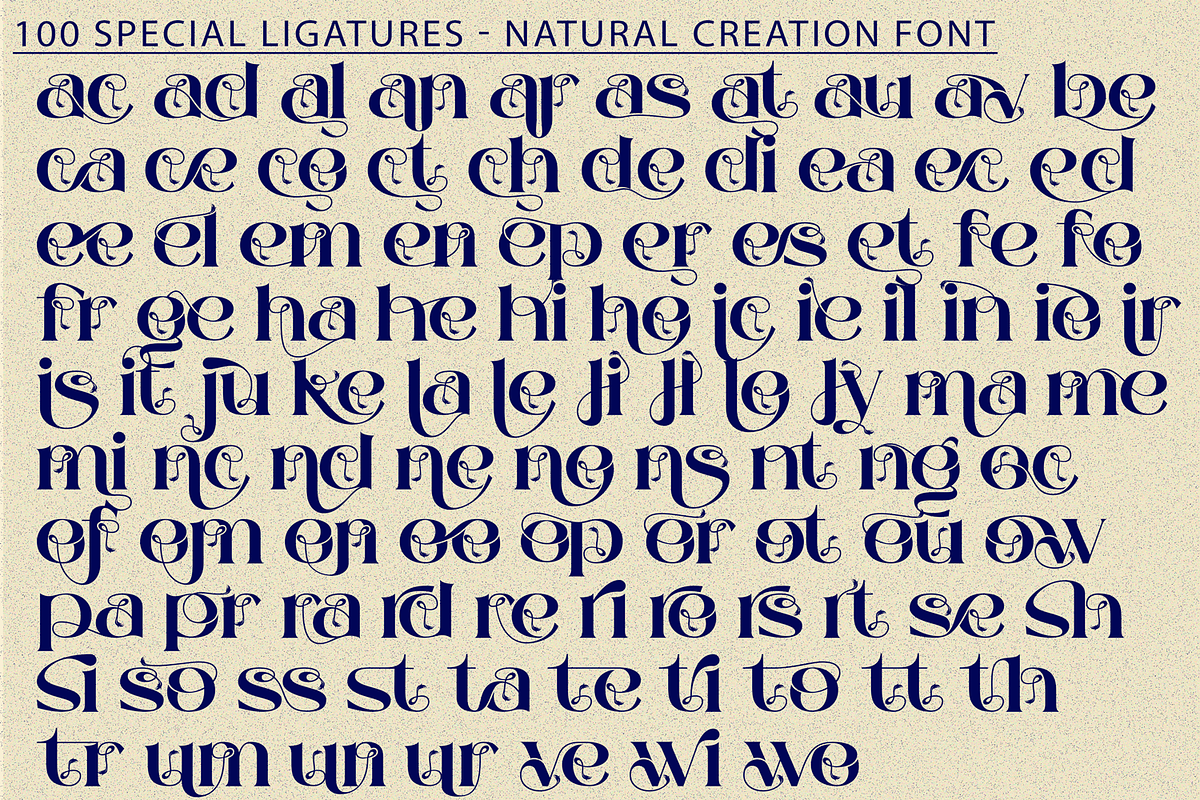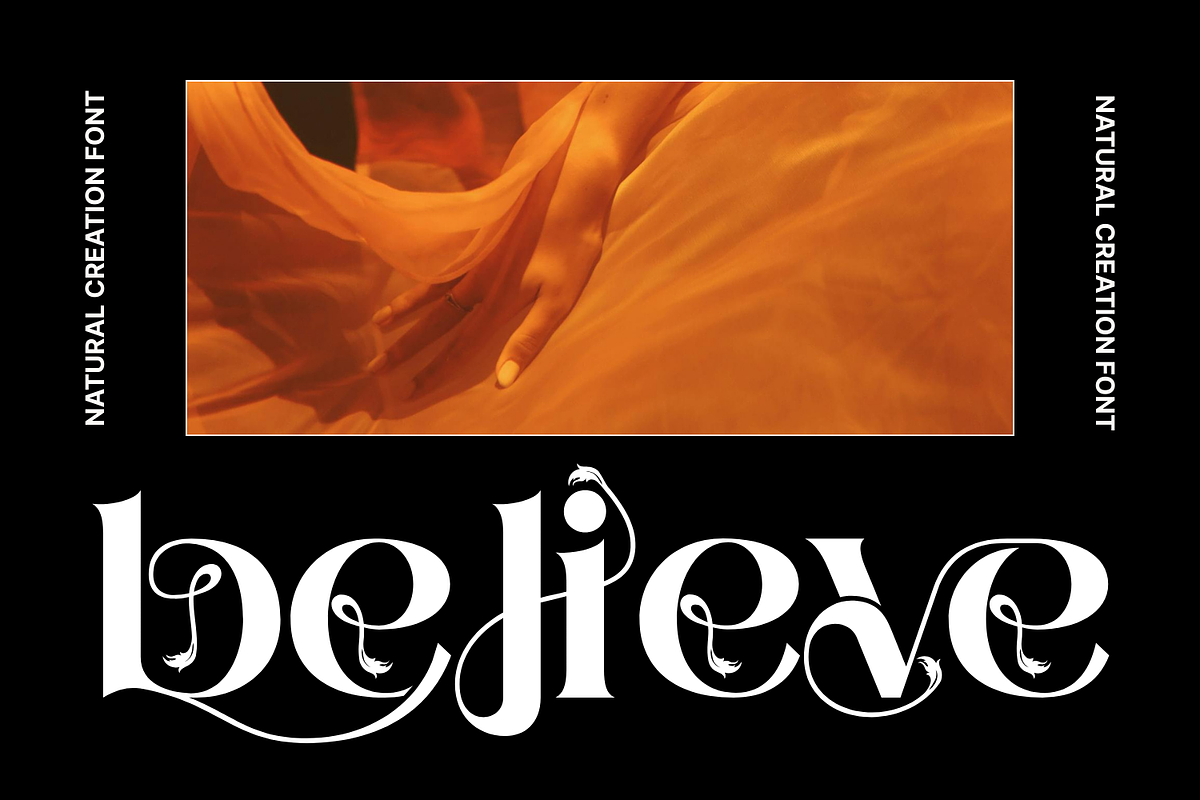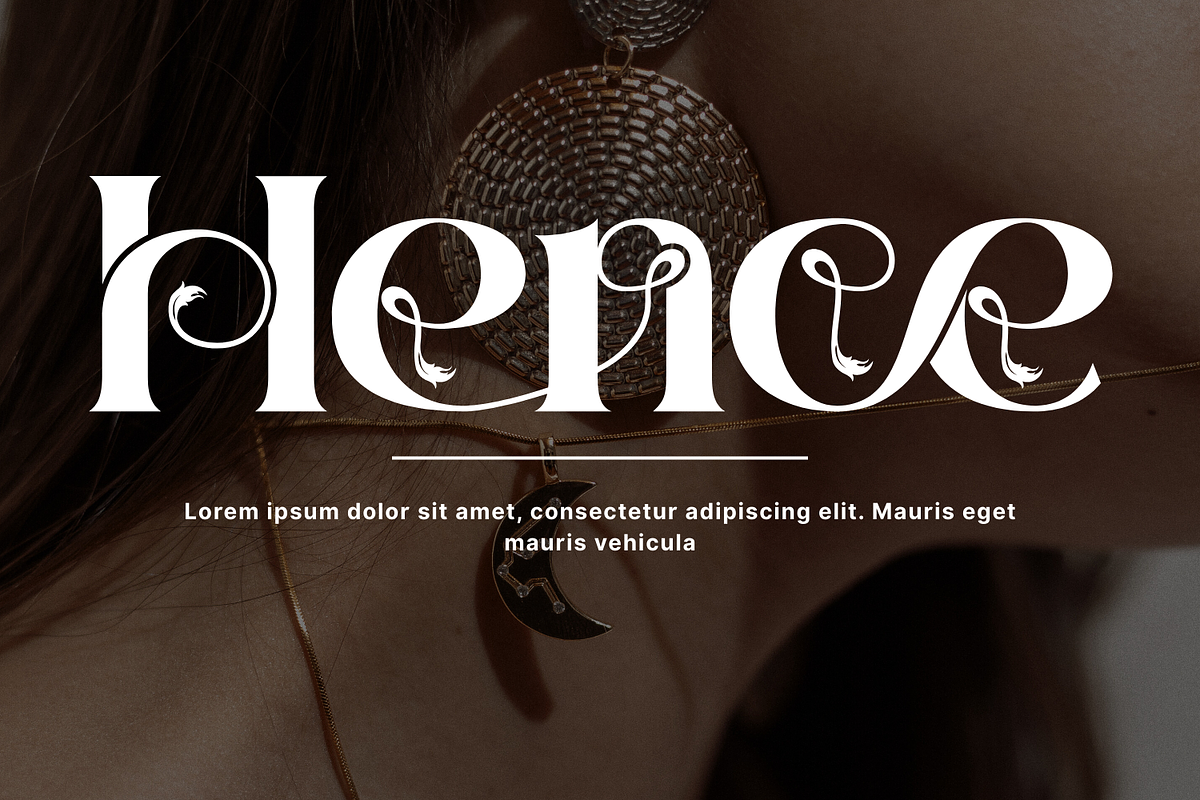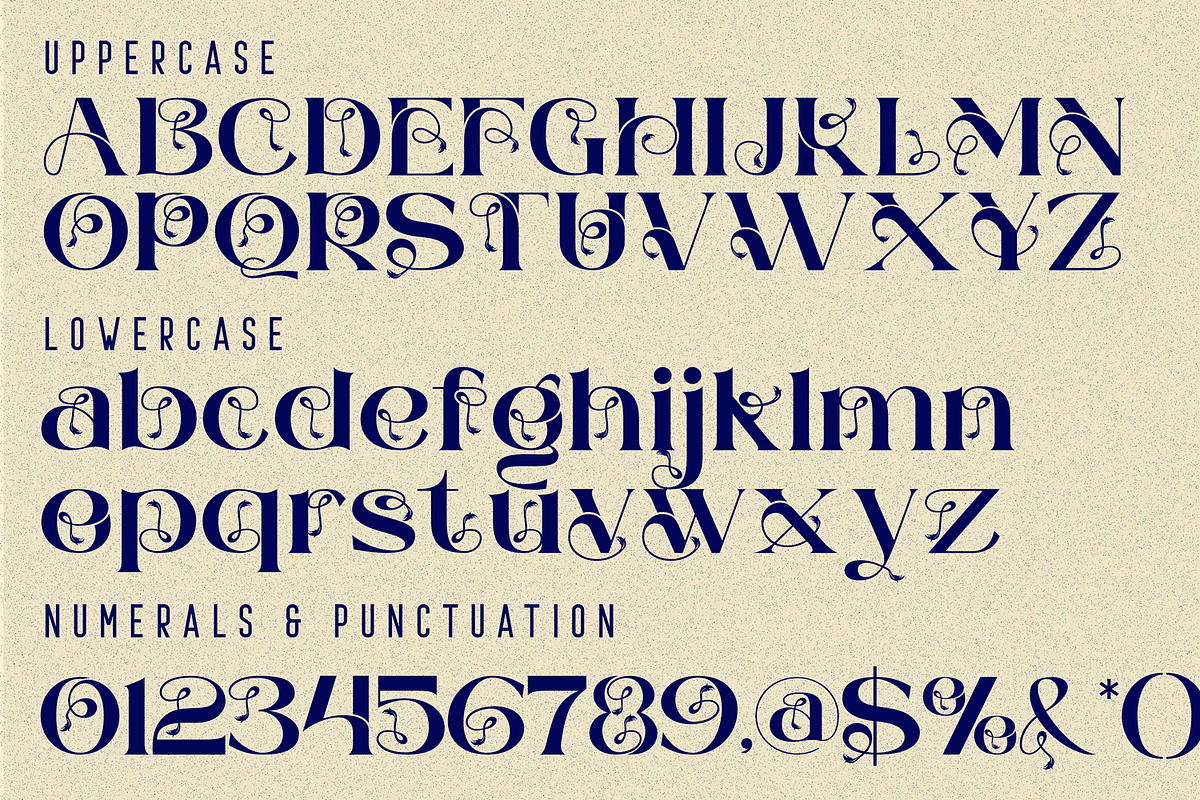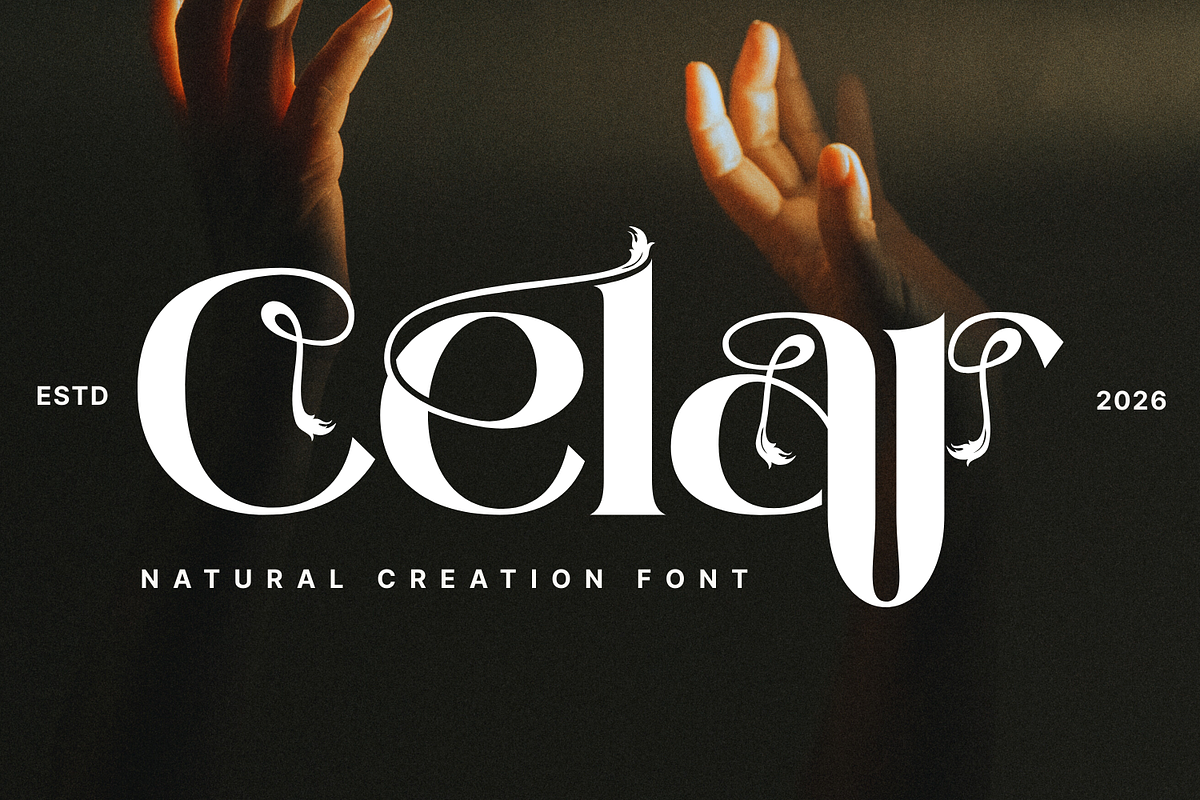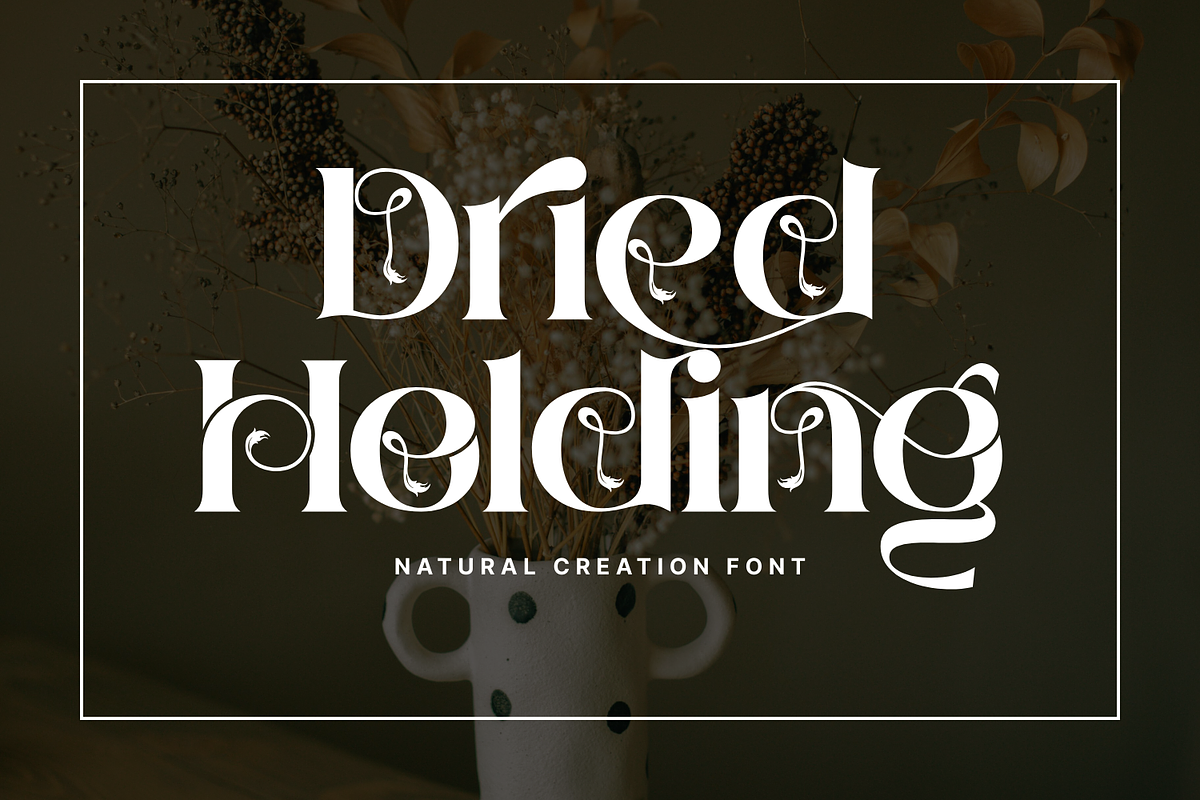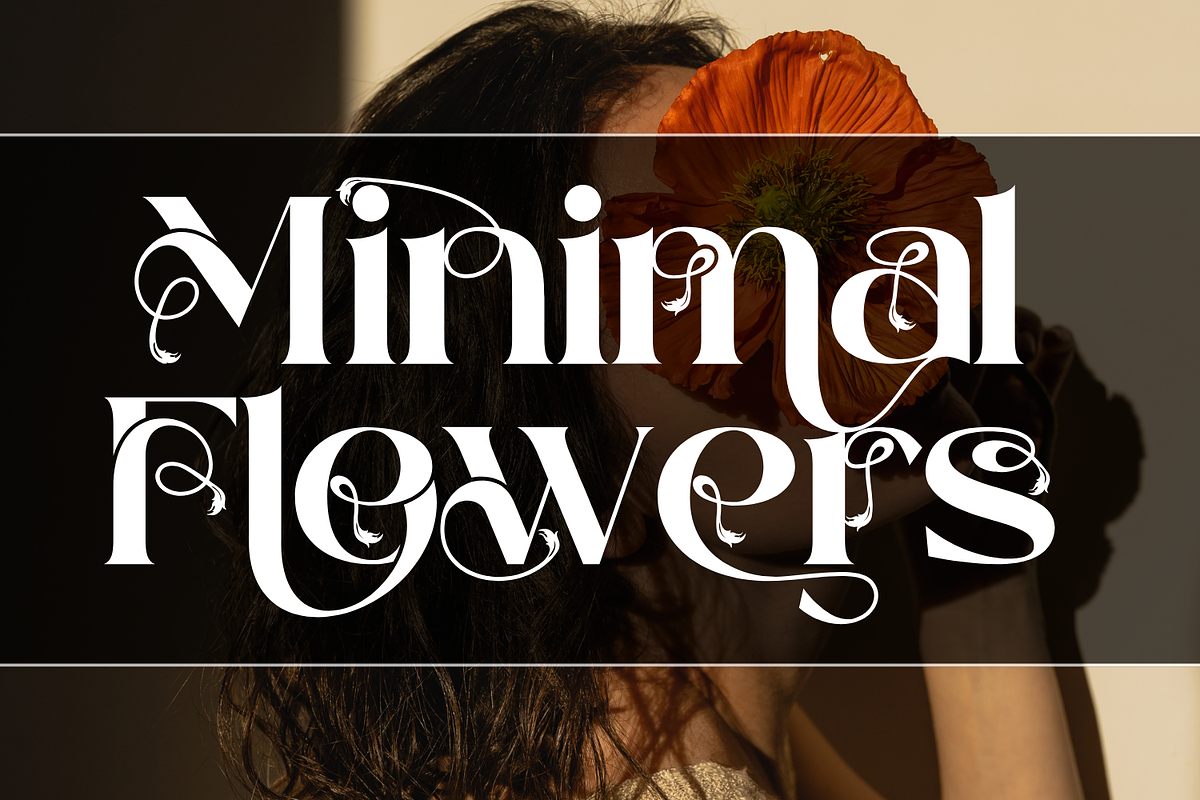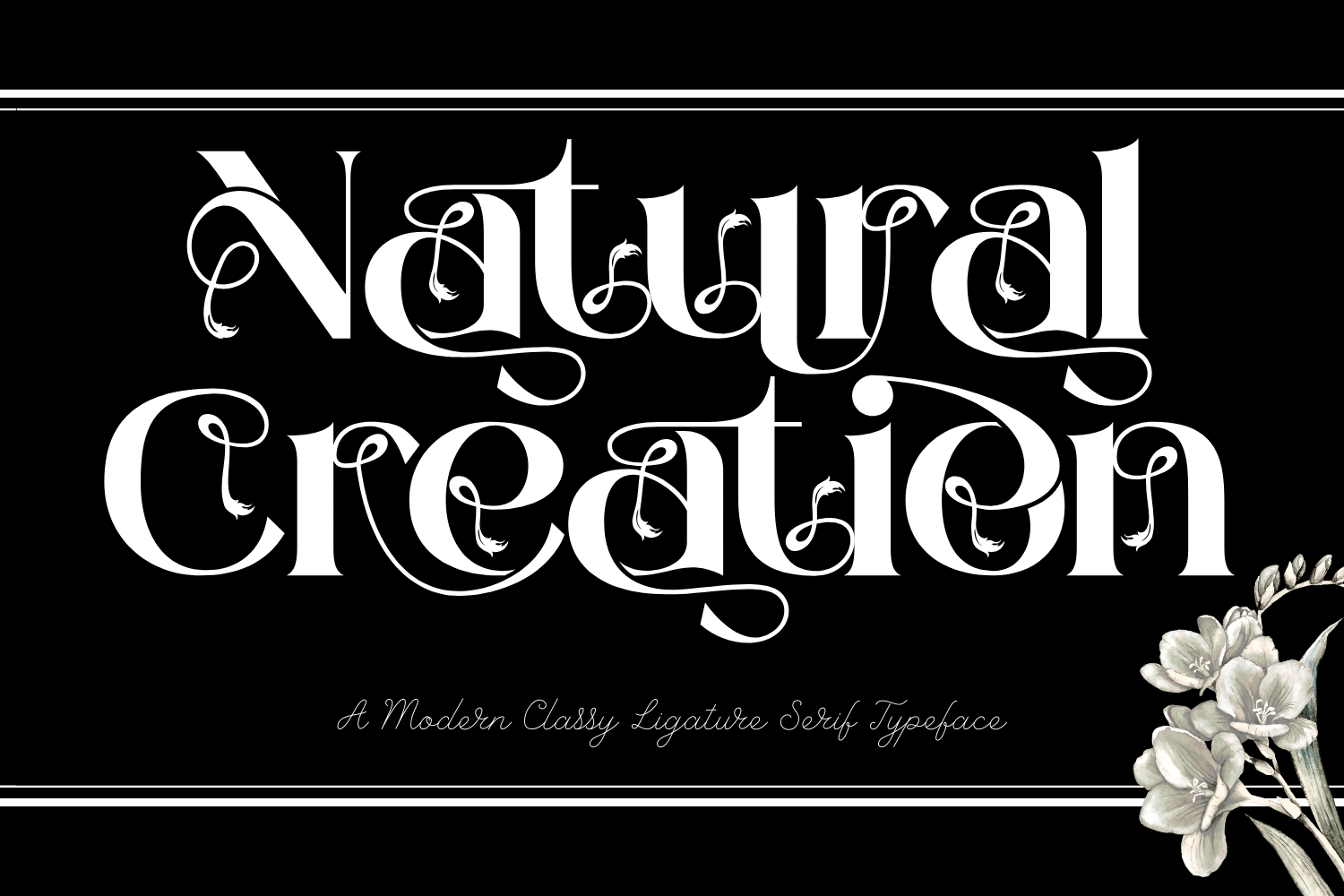
Natural Creation - Decorative Font
Natural Creation - Decorative Font is an elegant decorative serif display typeface inspired by classic calligraphy and luxury editorial design. Featuring high-contrast strokes, graceful curves, and intricate ornamental ligatures, this font brings a romantic and sophisticated character to any composition. Including both Uppercase and Lowercase letters, approximately 100 custom special ligatures, complete Numerals & Punctuation, and extensive Accented characters, Natural Creation allows designers to create expressive, refined, and visually rich typographic layouts. Its flowing swashes, decorative loops, and elegant proportions make it ideal for fashion branding, wedding designs, boutique logos, packaging, book covers, and high-end editorial projects.
- Uppercase & Lowercase Letters
- Around 100 Special Ligatures & Alternates
- Accented Characters for multilingual support
🔤About 100 ligatures combined with Stylistic Alternates Font:
ac ad al an ar as at au av be ca ce ch co ct de di ea ec ed ee el em en ep er es et fe fo fr ge ha he hi ho ie ic il in io ir is it ju ke la le li ll lo ly ma me mi nc nd ne ng no nt ns oc of om on oo op or ot ou ow pa pr ra rd re ri ro rs rt se sh si so ss st ta te th ti to tr tt um un ur ve wi wo